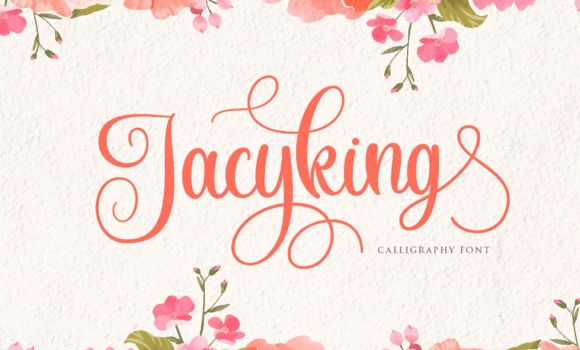
Jacyking Font – Free Download Introduction to Jacyking Font Jacyking is an exquisite handwritten font, masterfully designed to become a true favorite. 📸 Preview Gallery 6 images 📌 Product Name Jacyking Font 👤 Author StringLabs 📂 Category Explore ⬇️ Download